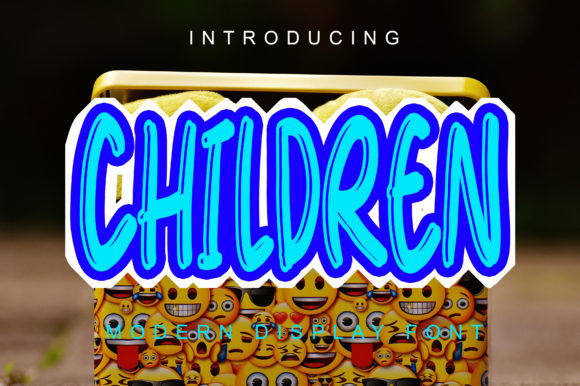
Introducing Children Font: The Fun and Trendy Display Font for Creative Projects
Are you a designer, crafter, or digital artist looking for a font that adds a touch of playfulness and trendiness to your projects? Look no further than Children Font! This fun display font is perfect for a variety of creative endeavors, from crafting and digital designing to presentations and greeting cards making.
What Makes Children Font So Special?
Children Font is a unique and eye-catching display font that features a perfect blend of modernity and playfulness. Its trendy design makes it ideal for projects that require a youthful and energetic feel. The font’s versatility allows it to be used in a wide range of applications, from digital designs and presentations to handmade crafts and greeting cards.
Key Features of Children Font
- Trendy Design: Children Font boasts a modern and stylish design that is sure to grab attention.
- Playful Feel: The font’s playful feel makes it perfect for projects that require a youthful and energetic vibe.
- Versatile: Children Font can be used in a variety of projects, from digital designs to handmade crafts.
- Easy to Read: Despite its playful design, Children Font is easy to read, making it perfect for body text and headings.
Uses of Children Font
Children Font is perfect for a wide range of creative projects, including:
- Crafting: Use Children Font to add a personal touch to your handmade crafts, such as scrapbooking, card making, and DIY projects.
- Digital Designing: Add a trendy touch to your digital designs, such as social media graphics, blog posts, and website headers.
- Presentations: Make your presentations stand out with Children Font’s playful and modern design.
- Greeting Cards Making: Create personalized and eye-catching greeting cards for special occasions.
Why Designers and Crafters Love Children Font
Designers and crafters love Children Font for its unique and trendy design, versatility, and ease of use. Here are some reasons why:
- Unique Design: Children Font’s unique design sets it apart from other fonts, making it perfect for designers and crafters who want to add a personal touch to their projects.
- Time-Saving: With Children Font, designers and crafters can save time and effort, as the font is easy to use and requires minimal editing.
- Customizable: Children Font can be customized to fit your project’s needs, making it perfect for designers and crafters who want to add a personal touch.
Tips for Using Children Font
Here are some tips for using Children Font in your projects:
- Use it as a Display Font: Children Font is perfect for display text, such as headings and titles.
- Pair it with Other Fonts: Pair Children Font with other fonts to create a unique and visually appealing design.
- Experiment with Colors: Experiment with different colors to find the perfect combination that matches your project’s theme.